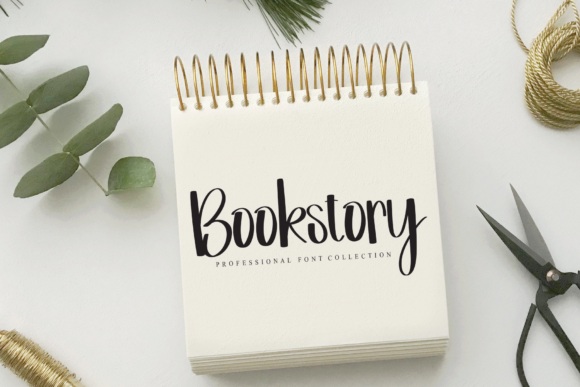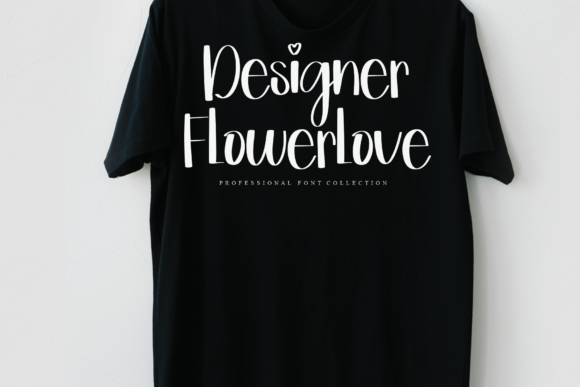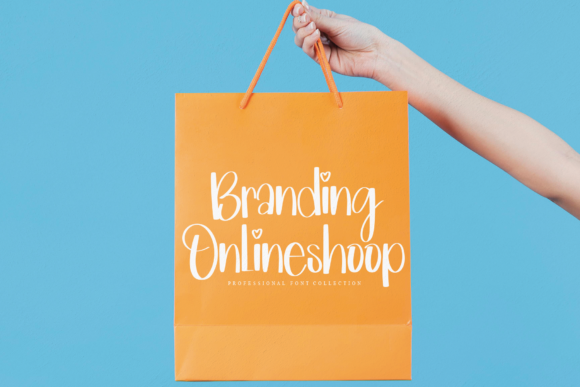
Introduction to Mandala Vintage Font
One such treasure is the Mandala Vintage Font, a stunning handwritten font that exudes a natural, authentic charm. Its nicely rounded characters and lovely cursive style make it an ideal choice for any project that requires a touch of elegance and sophistication. With its versatility, this font can be used for a wide range of creative endeavors, from branding and packaging to editorial and artistic designs.
Key Features of Mandala Vintage Font
- Unique, hand-drawn design with intricate details and patterns, perfect for creative projects and design resources.
- High-quality font with transparent background, ideal for use on various backgrounds and designs.
- Perfect for use in various design projects, such as invitations, posters, and digital art, where a vintage and bohemian feel is desired.
- Includes a wide range of characters, including uppercase and lowercase letters, numbers, and punctuation marks, making it a versatile design resource.
Honest Review: Mandala Vintage Font
I recently came across the Mandal Vintage Font, and I was excited to give it a try. The font has a beautiful, hand-drawn feel to it that’s perfect for creative projects where you want to add a touch of whimsy and charm.
- ✨ The high quality of the font ensures that it looks great on a variety of devices and screen sizes.
- ⚠️ The font is a bit limited in its customization options, which may be a drawback for some designers.
Overall, I was impressed with the Mandal Vintage Font, and I think it’s a great addition to any designer’s toolkit. While it has its limitations, the benefits far outweigh the drawbacks, making it a worthwhile design resource for creative projects.
One of the unique features of the Mandala Vintage Font is its ability to be used on a transparent background. This makes it perfect for creating overlays, graphics, and other design elements that require a transparent background.
The Mandala Vintage Font is a versatile design resource that can be used in a variety of creative projects, including:
- Artistic and creative posters
- Graphic designs and branding materials